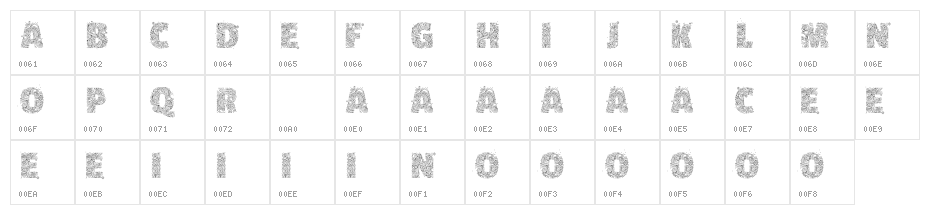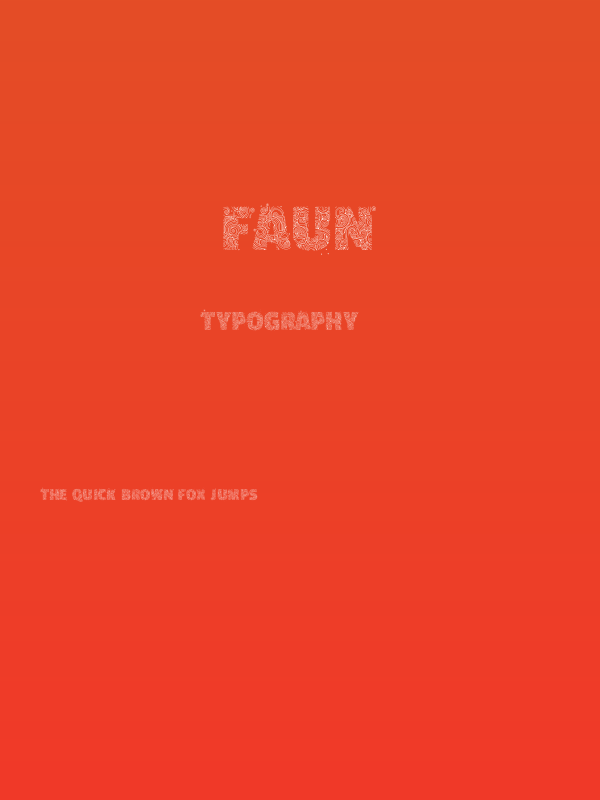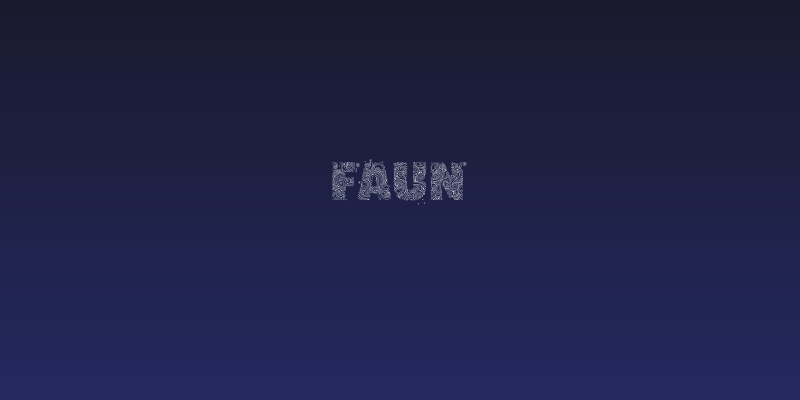
Faun Font
Faun Description
This font features an intricate and decorative design with swirling patterns embedded within each character. The elaborate detailing gives it a unique and artistic appearance, making it stand out as a display font. The characters are bold and well-defined, with a consistent pattern that creates a sense of movement and fluidity. This font is ideal for projects that require a touch of elegance and creativity, such as invitations, posters, or artistic branding. Its decorative nature makes it less suitable for body text but perfect for capturing attention in headlines or logos.
| Proposed Projects | Ideal for invitations, posters, artistic branding, and headlines. |